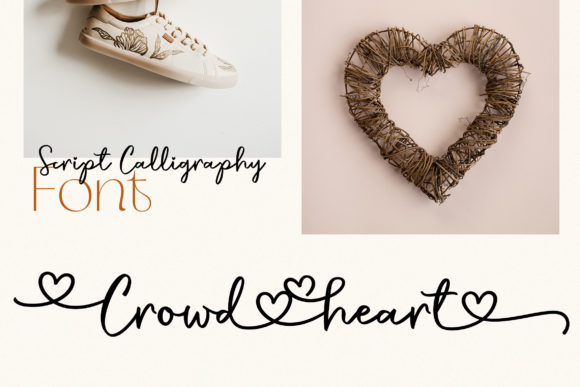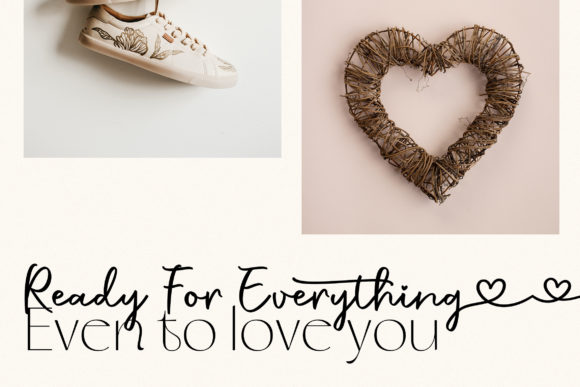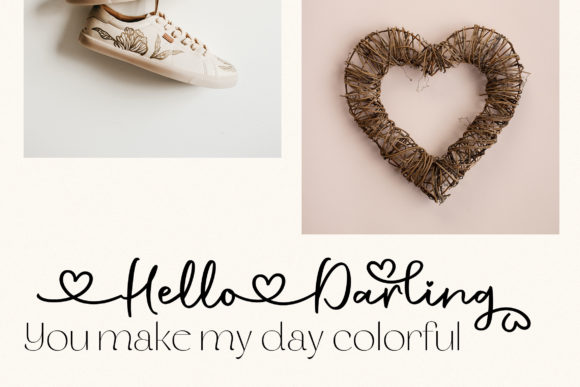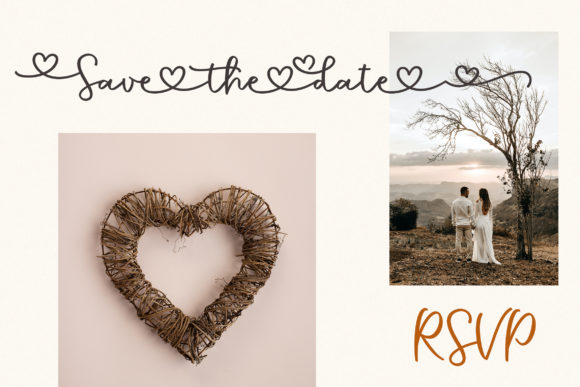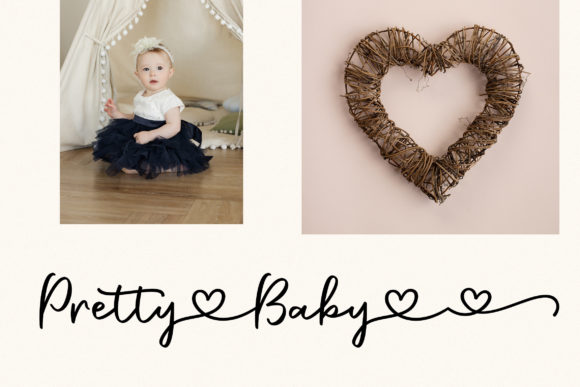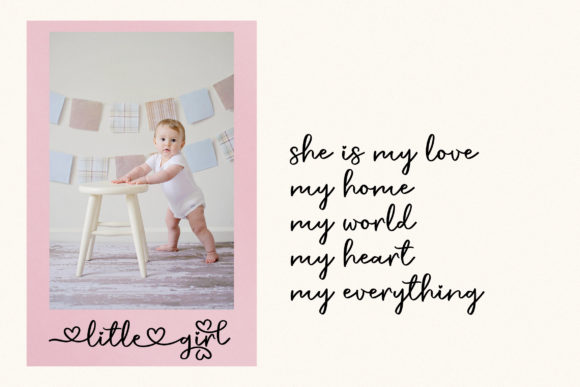
Crowd Heart Script Font: Elevate Your Designs with Luxury and Elegance
Are you a designer or crafter looking for a font that can add a touch of luxury and sophistication to your projects? Look no further than the Crowd Heart Script Font. This beautiful and light handwritten font is designed to make a stunning impact on any design project, from branding and advertising to packaging and digital media.
What Makes Crowd Heart Script Font Special?
Crowd Heart Script Font is a unique and elegant font that boasts a distinctive feel, setting it apart from other fonts in its category. Its handwritten style gives it a personal and organic touch, making it perfect for designers who want to add a human element to their designs. Whether you’re creating a logo, brochure, or social media graphics, this font is sure to elevate your design and make it stand out.
Key Features of Crowd Heart Script Font
- Beautiful and Light Handwritten Style: Crowd Heart Script Font features a beautiful and light handwritten style that is both elegant and refined.
- Unique Feel: This font has a unique feel that sets it apart from other fonts in its category, making it perfect for designers who want to create something distinctive.
- Luxury Spark: This font is designed to add a luxury spark to any design project, making it perfect for high-end branding, advertising, and packaging.
Benefits of Using Crowd Heart Script Font
Using Crowd Heart Script Font in your design projects can bring numerous benefits, including:
- Enhanced Visual Appeal: This font is designed to make a stunning impact on any design project, enhancing the visual appeal and drawing the viewer’s attention.
- Increased Legibility: Crowd Heart Script Font is highly legible, making it perfect for body text and other applications where readability is crucial.
- Flexibility: This font is versatile and can be used in a wide range of design projects, from digital media to print materials.
Who Can Benefit from Crowd Heart Script Font?
Crowd Heart Script Font is perfect for a wide range of designers and crafters, including:
- Graphic Designers: This font is ideal for graphic designers who want to create stunning visual effects and add a touch of luxury to their designs.
- Branding and Advertising Agencies: Crowd Heart Script Font is perfect for branding and advertising agencies who want to create high-end campaigns that stand out.
- Packaging Designers: This font is suitable for packaging designers who want to create eye-catching and luxurious packaging designs.
- Digital Media Designers: Crowd Heart Script Font is also perfect for digital media designers who want to create engaging and interactive digital content.
| Font Name | Crowd Heart Script Font |
In conclusion, Crowd Heart Script Font is a beautiful and elegant font that can add a touch of luxury and sophistication to any design project. With its unique feel, PUA encoding, and stunning impact, this font is perfect for designers and crafters who want to create high-end designs that stand out. Whether you’re a graphic designer, branding agency, or packaging designer, Crowd Heart Script Font is a must-have font in your collection.